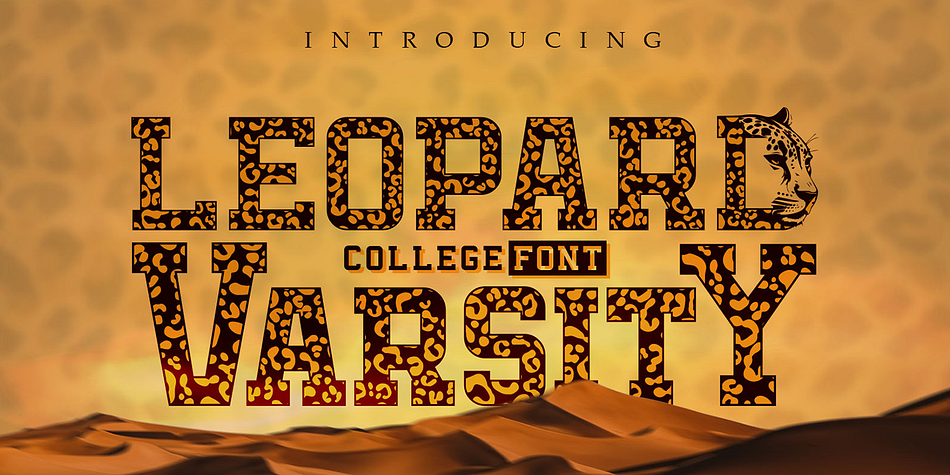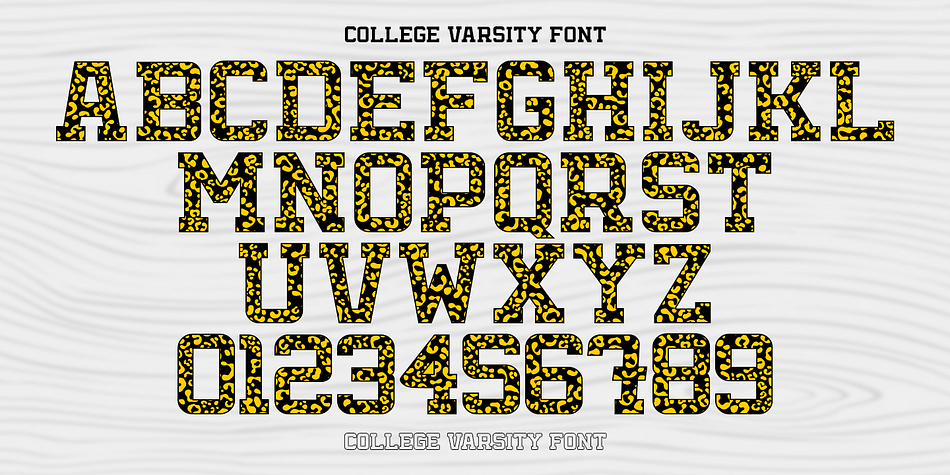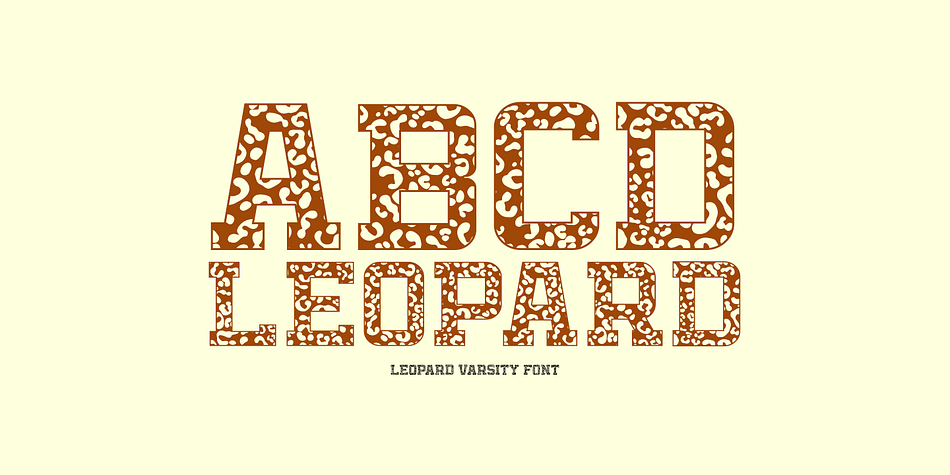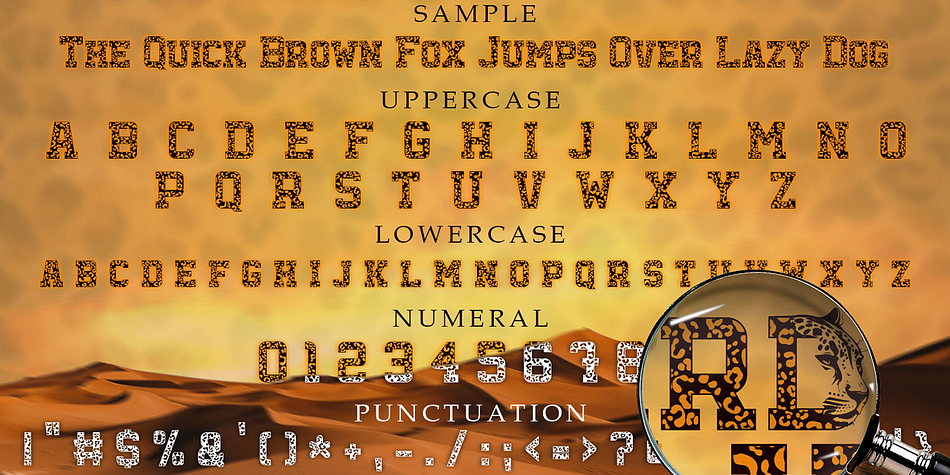
Leopard Varsity
Designed by Mohammed Lamjidi, Leopard Varsity is a display font family published by Beast Designer.
Leopard Varsity Font is designed to mimic the pattern of a leopard’s skin within the letterforms. Its unique characteristic lies in the intricate texture within the letters, resembling the spots or rosettes found on a leopard’s fur. Each letter incorporates these patterns in a way that adds depth and visual interest to the text, creating a bold and distinctive appearance reminiscent of the striking and organic design of a leopard’s coat. This feature makes it an eye-catching choice for projects aiming to evoke a sense of wildness, uniqueness, or adventurous spirit.